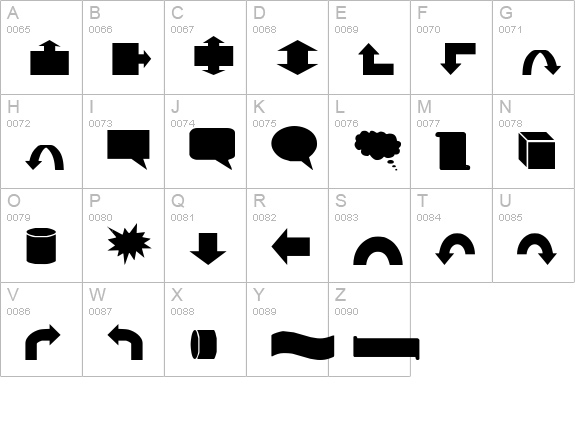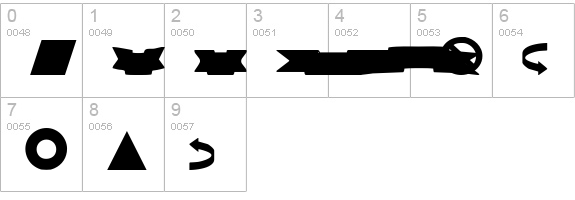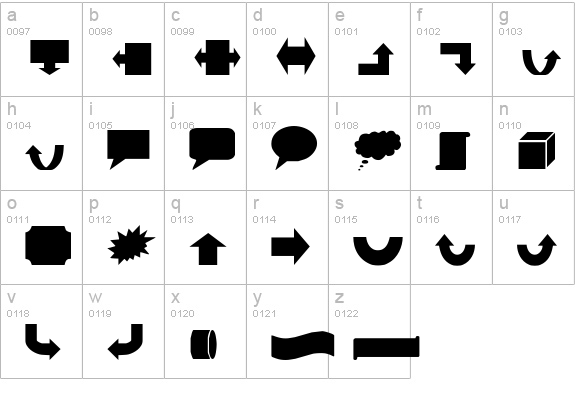
VariShapes Solid Font Details
VariShapes Solid font is a versatile and modern typeface that is perfect for creating eye-catching designs. With its unique geometric shapes and clean lines, this font is sure to make your projects stand out. The bold and solid appearance of VariShapes Solid font exudes a sense of strength and professionalism, making it ideal for a wide range of design applications. What's even better is that VariShapes Solid font is available for free download at FontsMarket.com. This means you can easily access this high-quality font without having to spend a penny. Whether you're working on a graphic design project, branding, or any other creative endeavor, VariShapes Solid font is a must-have addition to your font library. Don't miss out on the opportunity to enhance your designs with the sleek and modern look of VariShapes Solid font. Download it for free today and take your projects to the next level!